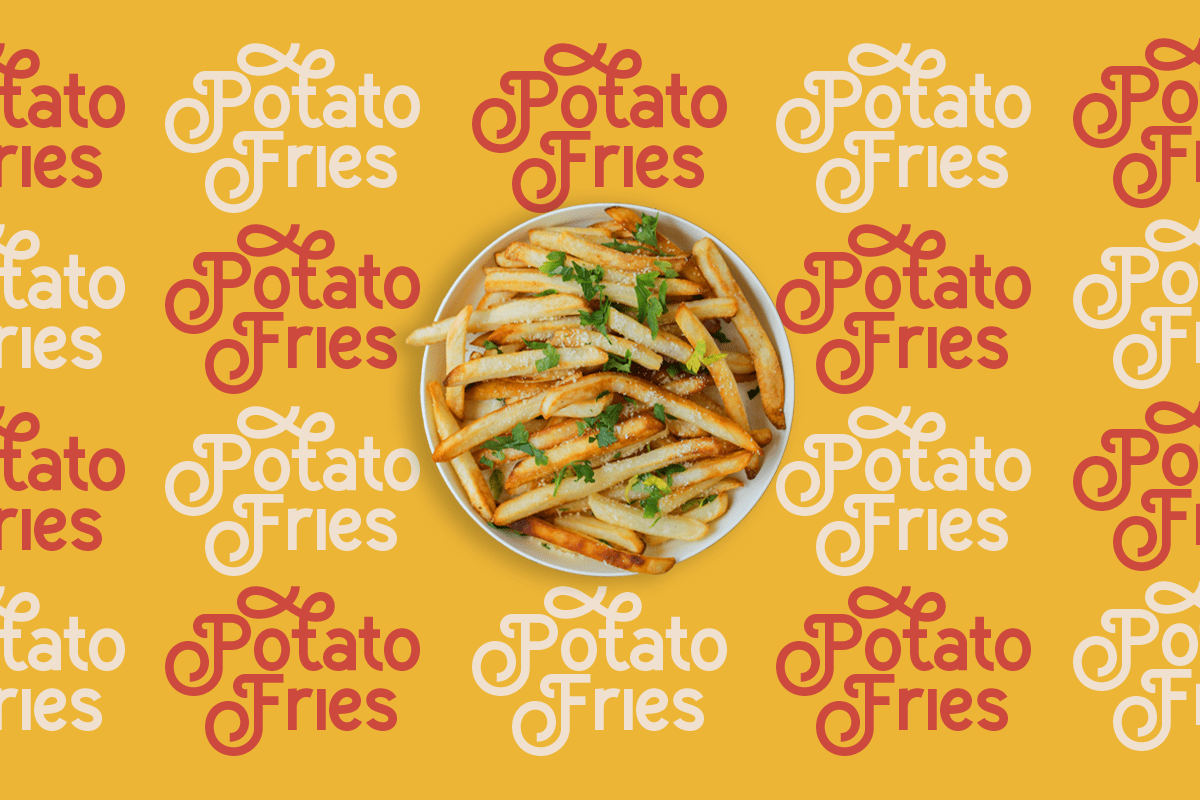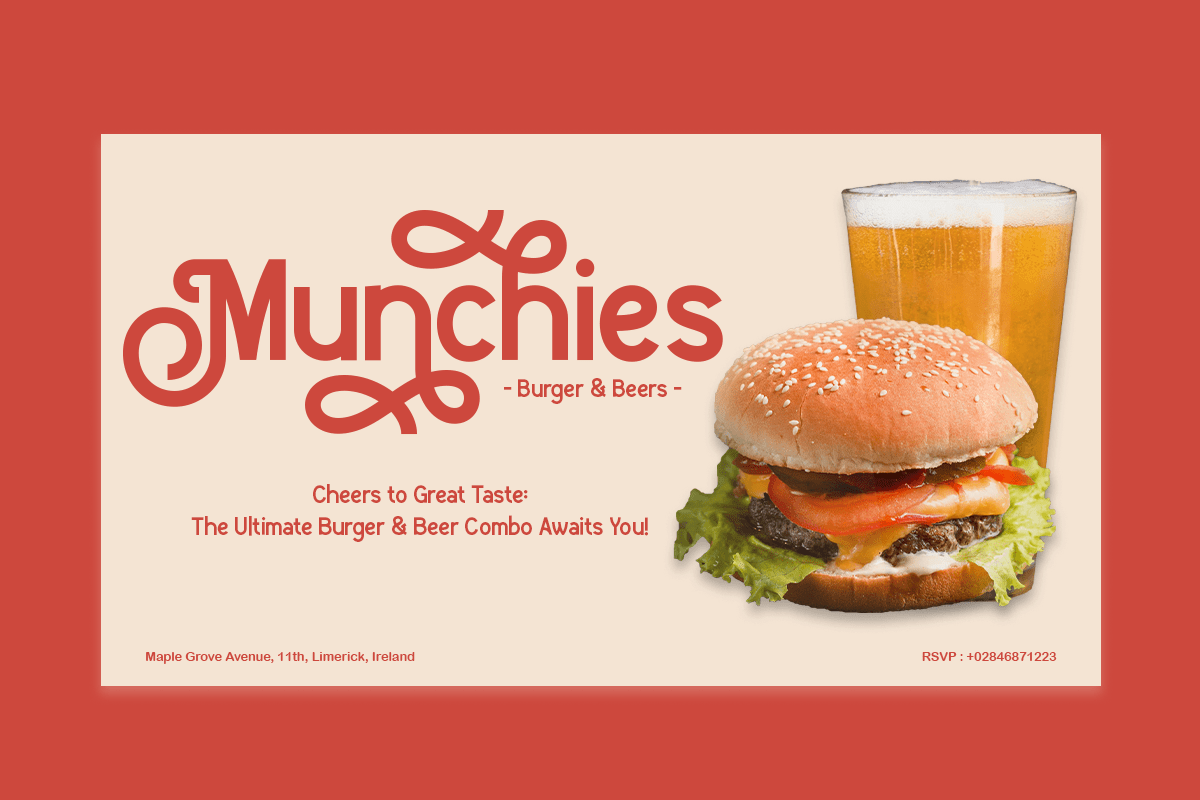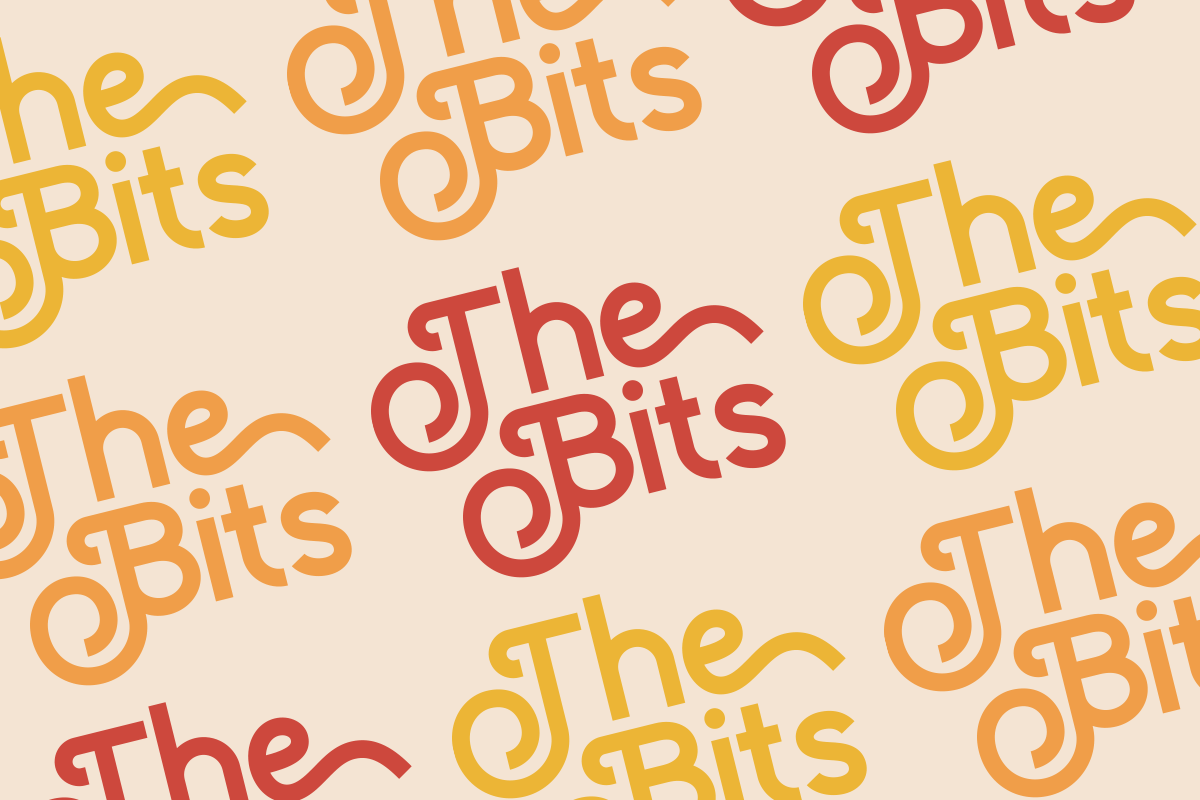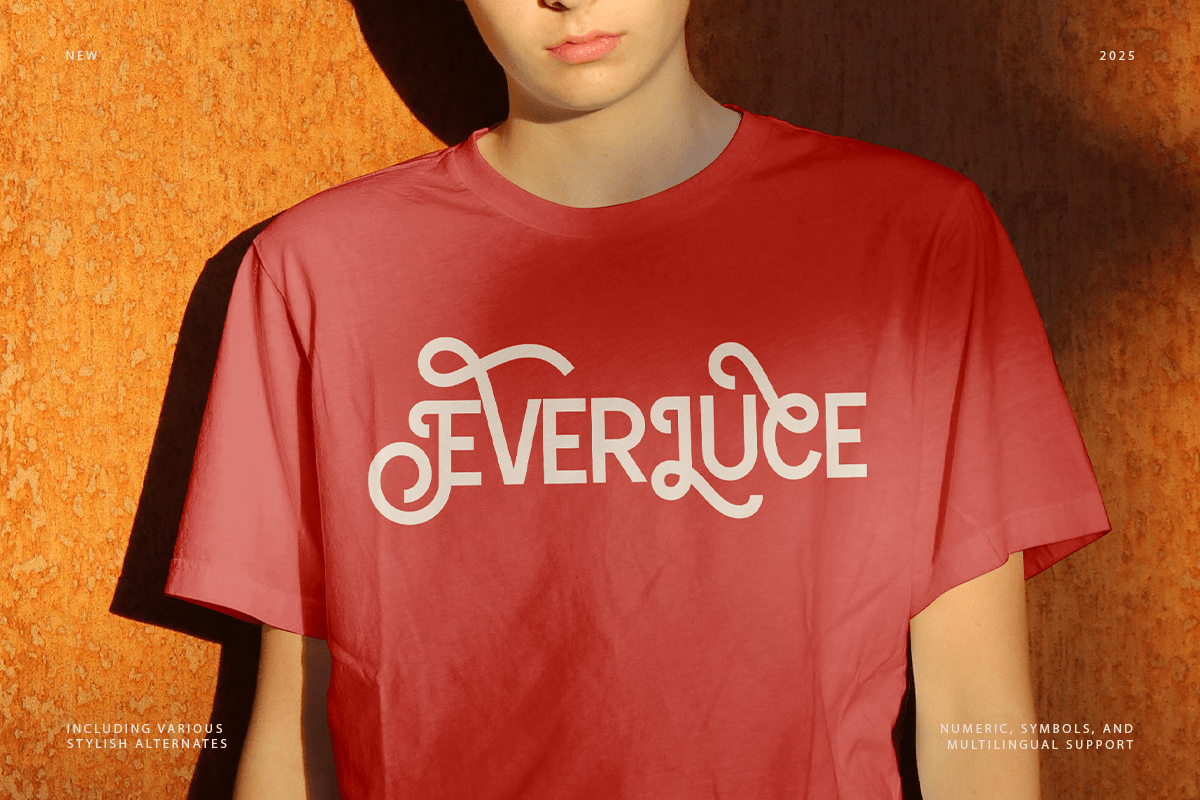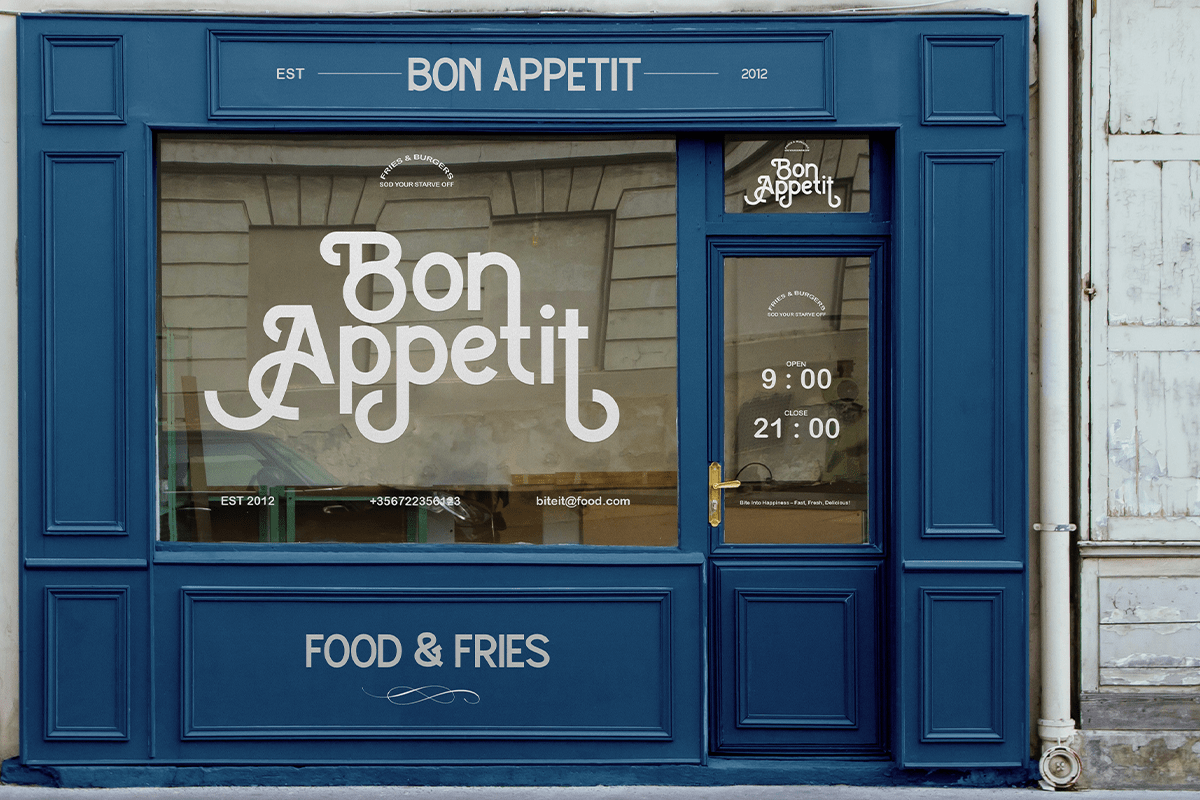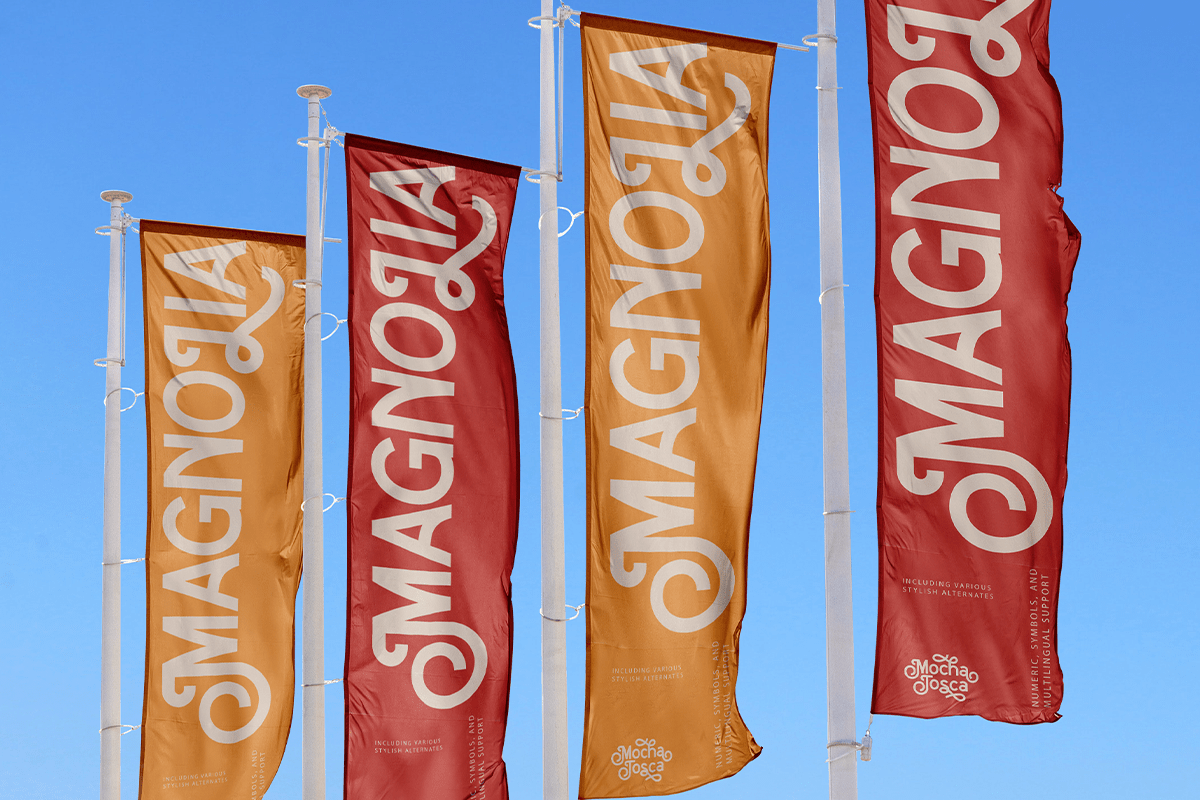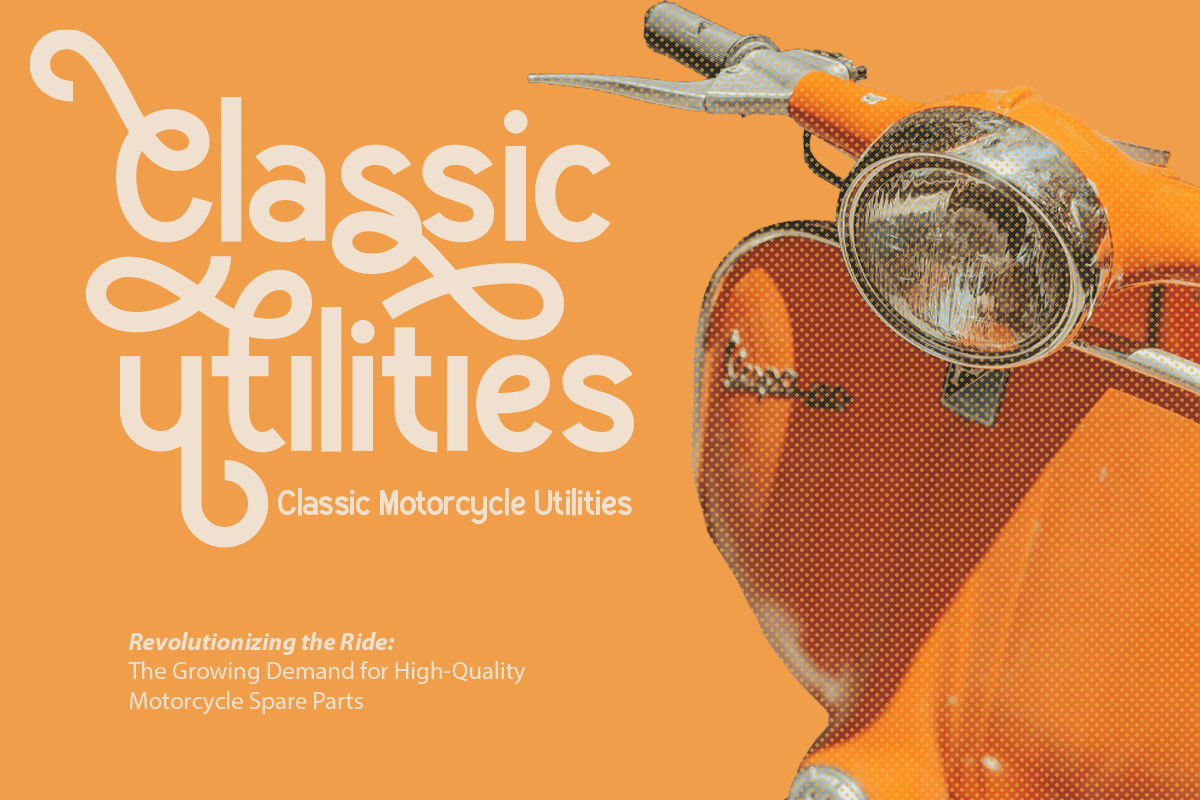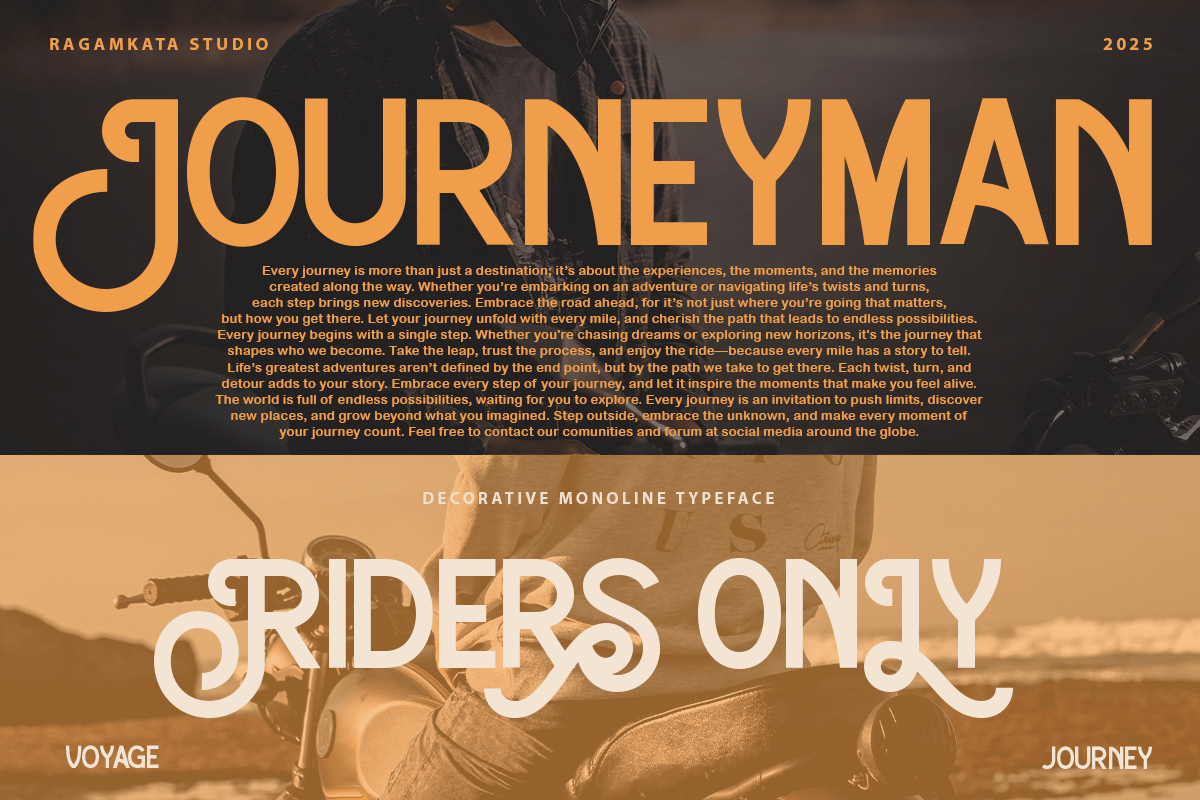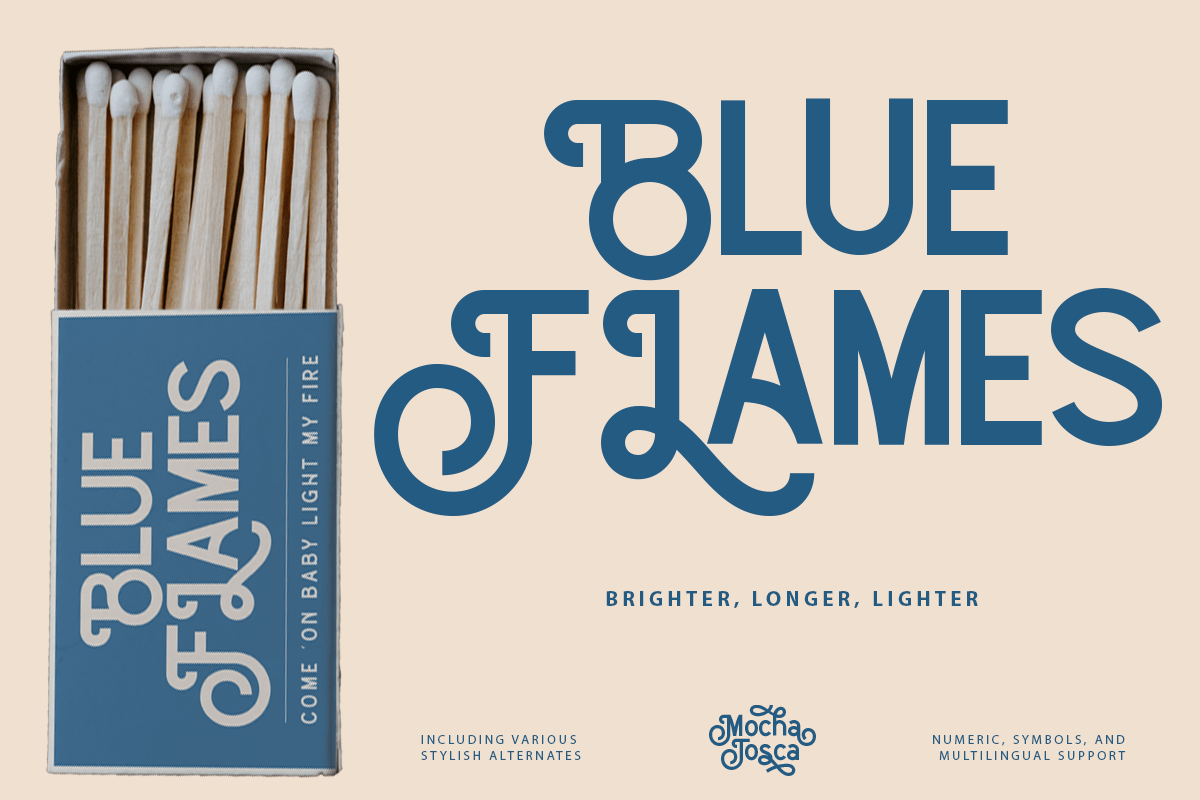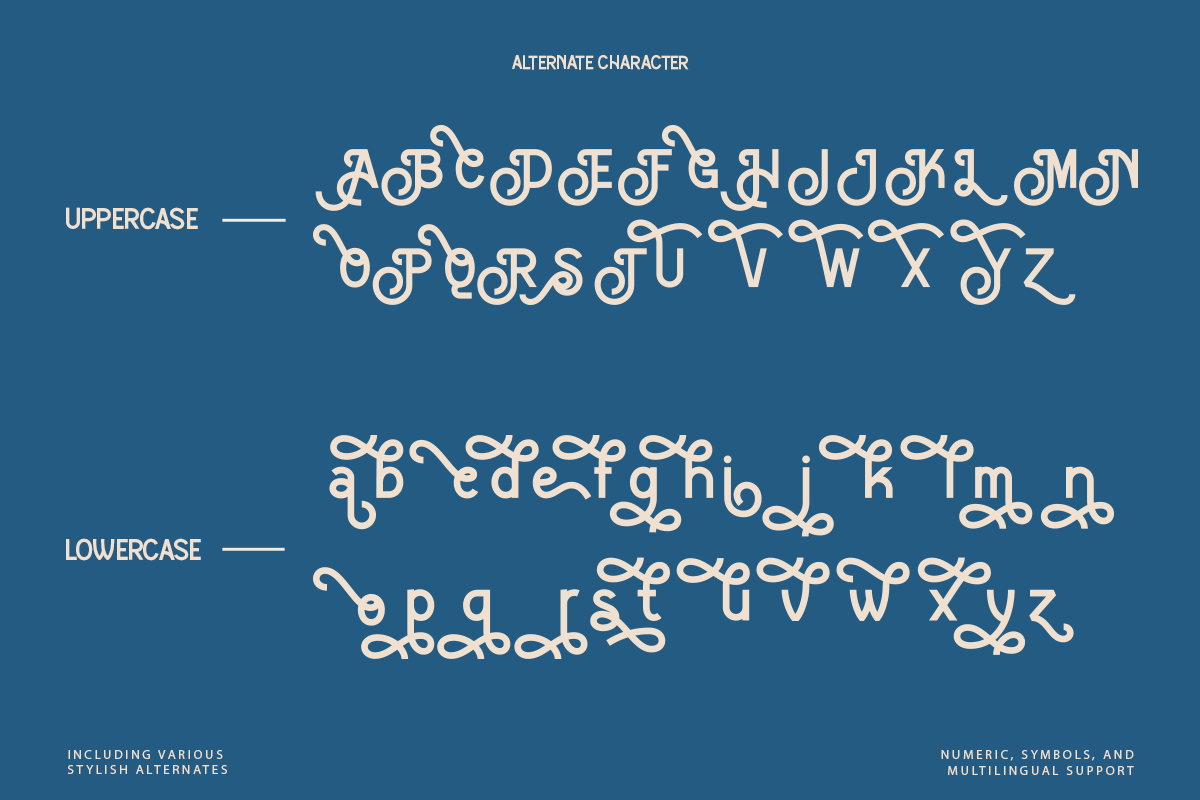
Mocha Tosca – Decorative Monoline Font
Mocha Tosca – decorative monoline font with stylistic alternatives. Mocha Tosca has an Open Type feature to access a large selection of unique alternative letters and to make it easier for you to create.great for product logo, poster, headline, card logo, clothing brand logo, lettering artwork, t-shirt designs, Vintage design, magazine, packaging, stationery and much more.
– Stylistic Alternates
– Multi Language Support